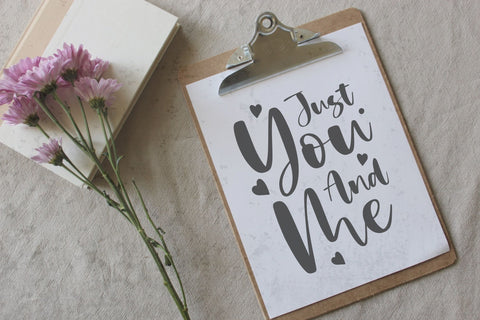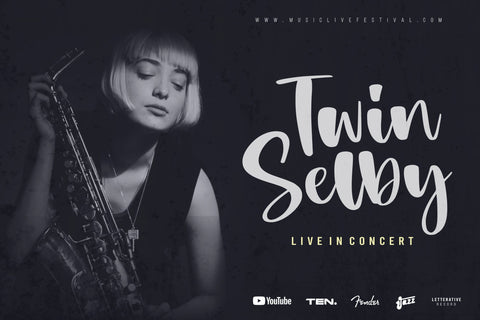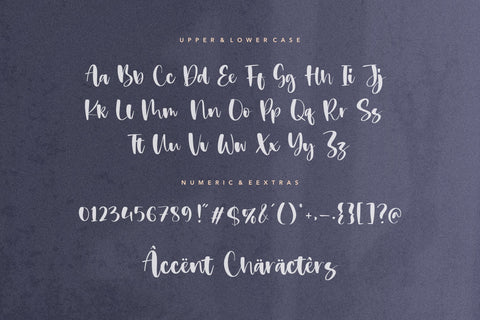
Adorable Modern Handwritten Font
Adorable is a Modern Handwritten Font
Adorable is a bold and fun handwritten font. A little bit quirky, this font looks incredibly adept on a wide variety of contexts!
Adorable also multilingual support